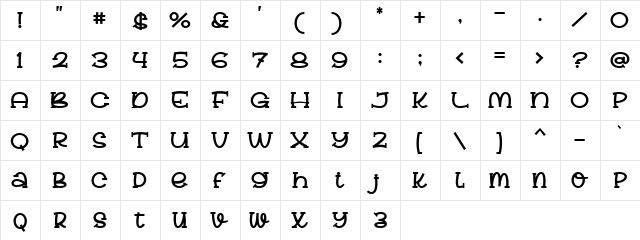
Brendy Berly Regular
| Foundry | Blankids Studio |
| Designer | Bangkit Tri Setiadi |
Design Context for Brendy Berly Typeface
Brendy Berly is a composed and adaptable typeface that performs quietly and consistently across a wide range of design contexts.